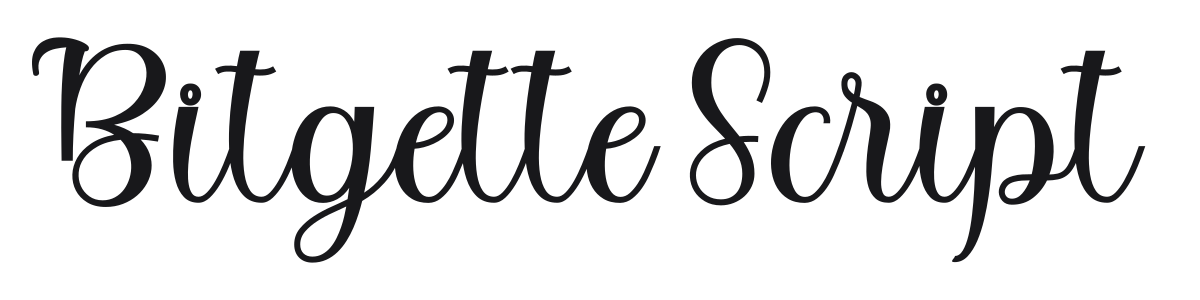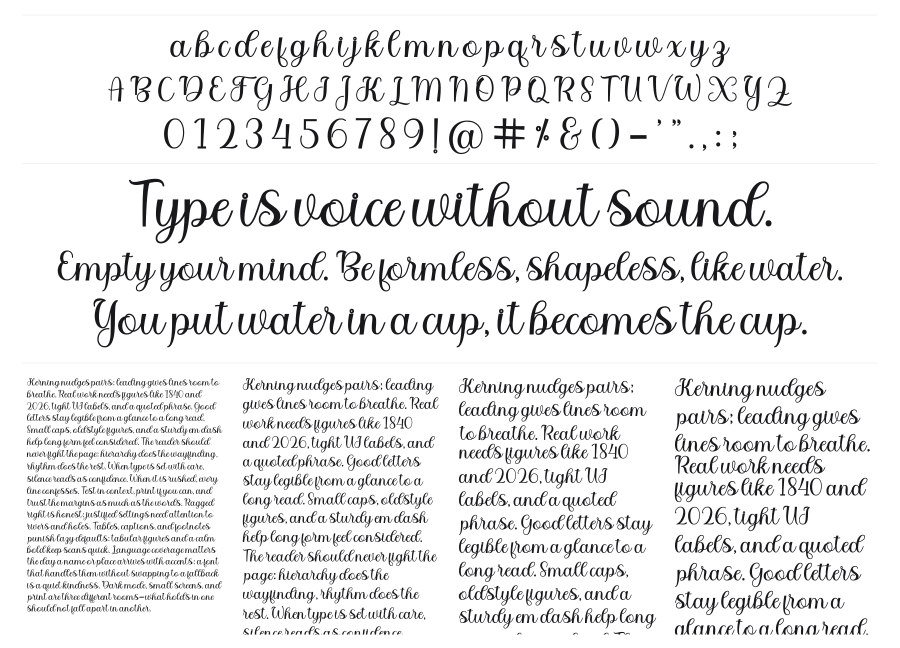
Bitgette Script
Bitgette Script is a flowing casual script with confident strokes and looped flourishes throughout. The moderate weight and bouncy rhythm give it an approachable, handcrafted feel without tipping into overly formal territory. It works naturally for branding, packaging, and display headlines where a warm personal touch is needed.